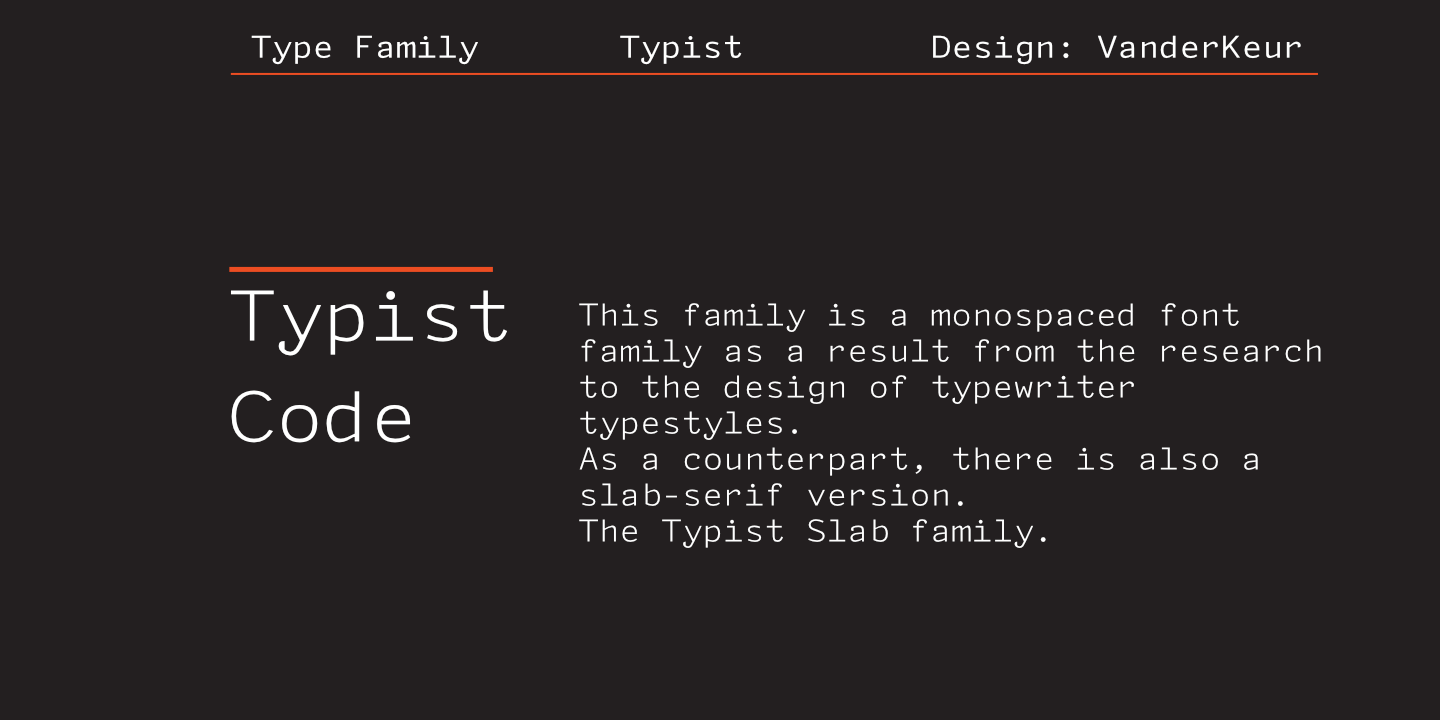
Typist Code Mono Font is a clean and modern monospaced typeface designed specifically for coding, programming, and technical documentation. Its clear and consistent character width enhances readability and reduces eye strain during long coding sessions.
What makes Typist Code Mono Font Free Download so exciting is its blend of functionality and style, providing developers with a typeface that looks great both on-screen and in print while maintaining perfect alignment for code blocks.
The Typist Code Mono Font family typically includes multiple weights such as Regular and Bold, giving programmers the flexibility to emphasize syntax or differentiate code elements.
Whether you’re developing software, writing documentation, or designing tech-focused websites, Typist Code Mono Font Free Download ensures your code looks clean, professional, and easy to read.